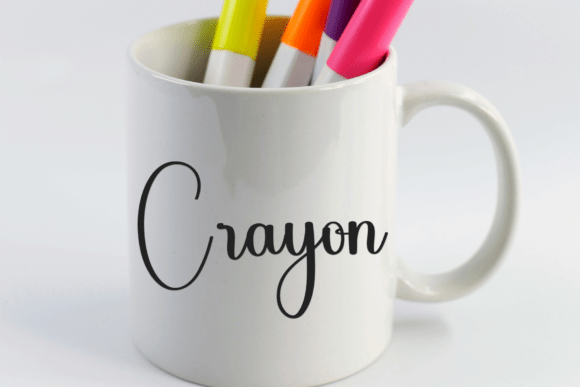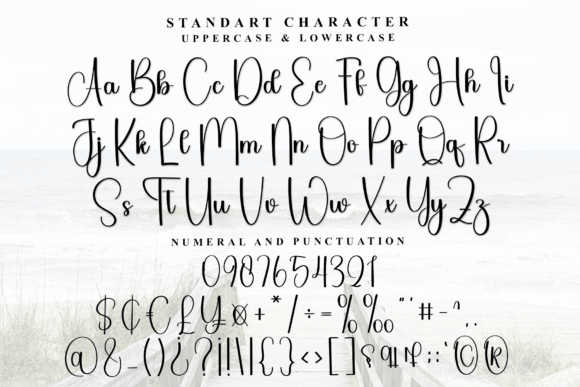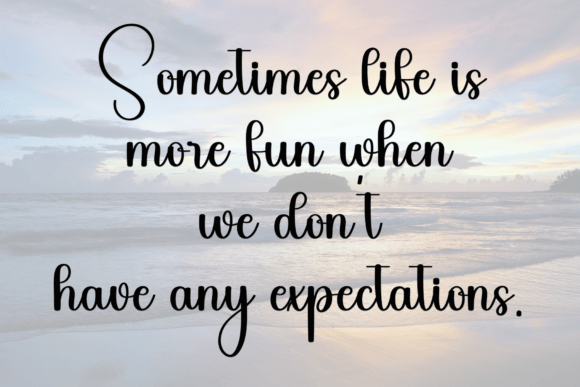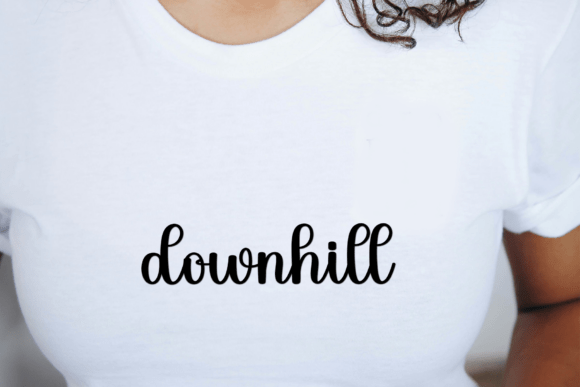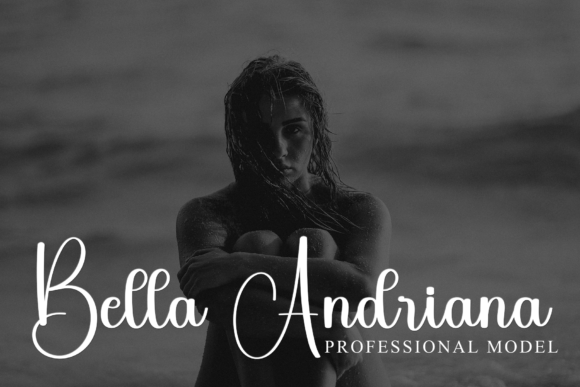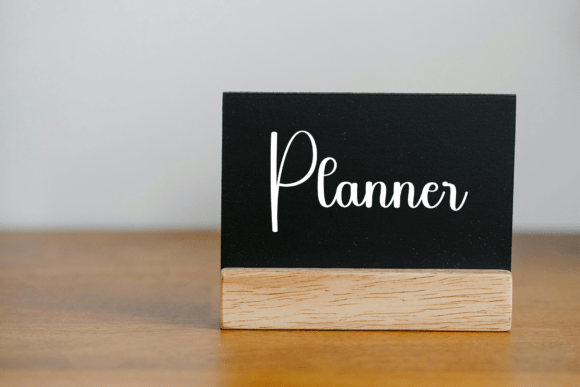
Introduction to Roasted Bakery Font
Have you ever stared at a blank canvas, waiting for the perfect inspiration to strike? For designers, those moments are what make the creative process so thrilling. One such spark of inspiration can lead to something truly special, like discovering the perfect font to elevate your project. For me, that moment came when I stumbled upon the Roasted Bakery Font – a flowing handwritten font that exudes elegance and sophistication.
What sets the Roasted Bakery Font apart is its unique blend of style and versatility. Whether you’re working on a free download project or a high-quality design, this font is sure to make a lasting impression. Its transparent background allows for seamless integration with any design, making it a valuable resource for designers looking to add a touch of personality to their work.
Key Features of Roasted Bakery Font
- Unique, hand-drawn design perfect for creative projects, such as bakery logos, food packaging, and menus.
- Perfect for use in bakery branding, food labels, and other creative projects requiring a warm, inviting aesthetic.
Honest Review: Roasted Bakery Font
Here’s what works well for me: ✨ The font has a unique, hand-drawn feel that adds a touch of warmth to any design. It’s perfect for projects that require a personal, rustic touch. I also appreciate that it comes with a transparent background, making it easy to use in various design applications.
- Unique, hand-drawn feel
However, I did encounter a few limitations: ⚠️ The font is only available in a limited number of weights, which might not be ideal for projects that require a wide range of font styles. Additionally, the font doesn’t come with a complete character set, which might be a drawback for some users.
Overall, I’m impressed with the Roasted Bakery Font’s unique design and high-quality feel. While it may have some limitations, I think it’s a great addition to any designer’s toolkit – especially for creative projects that require a personal touch.
The Roasted Bakery Font is a high-quality design resource perfect for any creative project. It offers a unique and stylish look that can elevate your work to the next level.
For the best results, use the Roasted Bakery Font with a transparent background to create a unique and eye-catching design. You can also experiment with different font sizes and styles to add visual interest to your project.
The Roasted Bakery Font is perfect for a variety of creative projects, including:
- Food blog or recipe design
- Restaurant or bakery branding
- Wedding or event invitations
- Product packaging design
Alternatives to Roasted Bakery Font
Great Vibes is a high-quality, modern script font ideal for creative projects that require a touch of elegance. It’s perfect for designing menus, invitations, or any other project where a sophisticated look is desired.
Compared to Roasted Bakery Font, Great Vibes has a more refined and polished appearance, making it suitable for a wider range of design applications.
Alex Brush is a beautiful, handwritten font that’s perfect for adding a personal touch to your design. It’s ideal for use in logos, branding, and other design projects where a unique, artistic look is required.
Unlike Roasted Bakery Font, Alex Brush has a more organic and free-flowing feel, making it perfect for designers who want to add a touch of personality to their work.